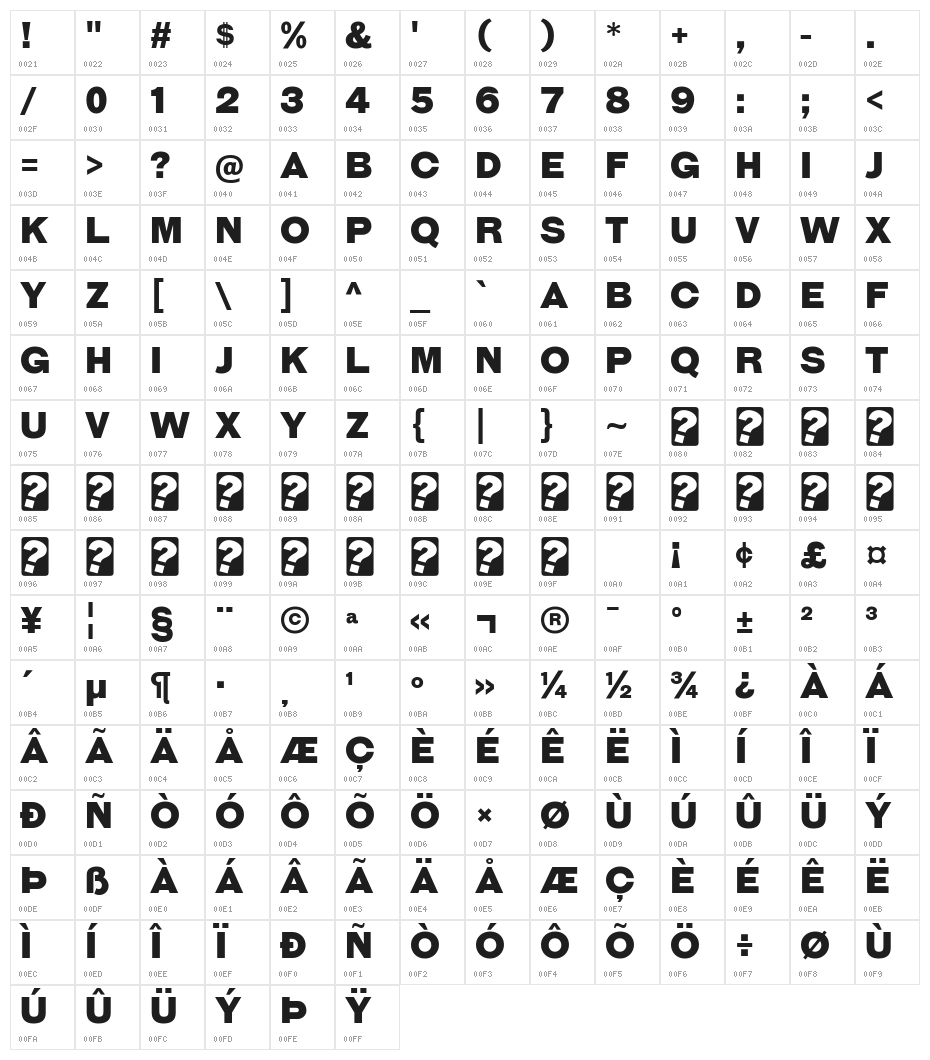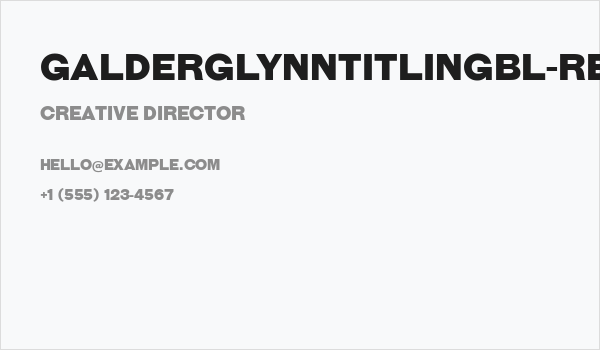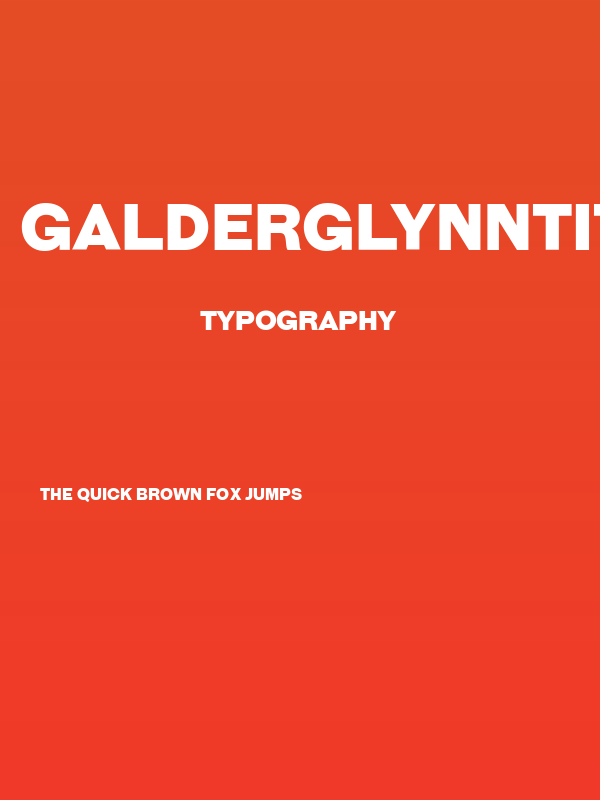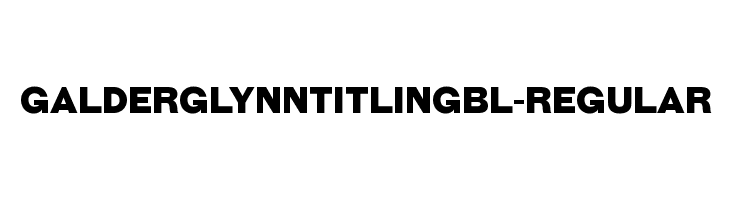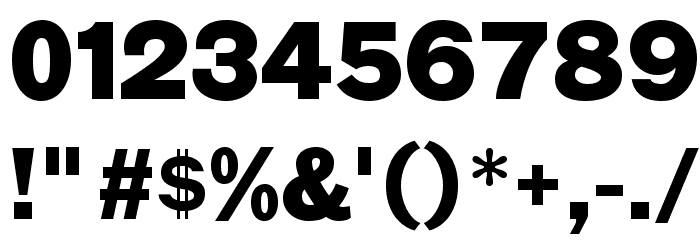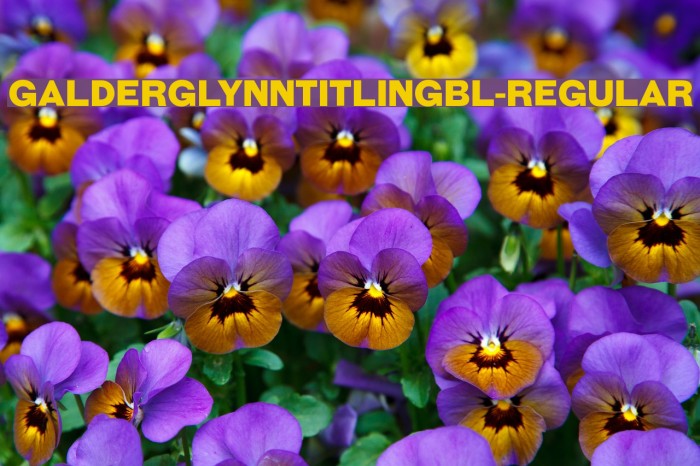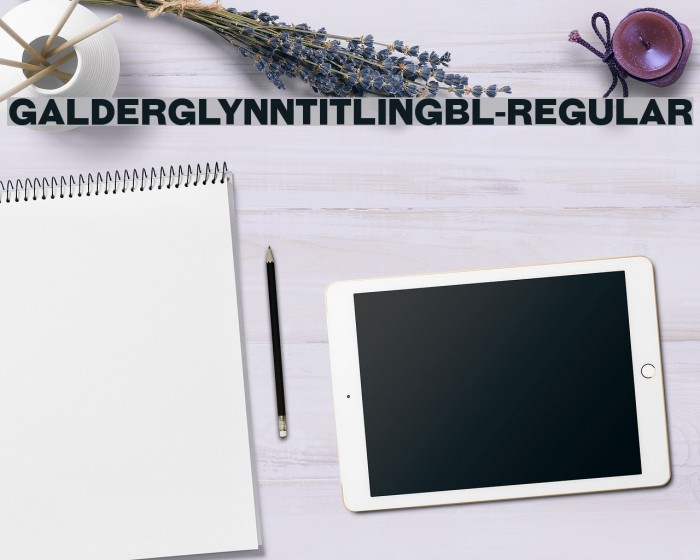
GalderglynnTitlingBl-Regular Font
GalderglynnTitlingBl-Regular Description
This font is a bold and impactful sans-serif typeface, characterized by its strong, geometric shapes and uniform stroke widths. The uppercase letters are particularly striking, with a solid presence that commands attention. The numbers and special characters maintain the same boldness, ensuring consistency across all glyphs. The font's design is clean and modern, making it suitable for a variety of applications where clarity and emphasis are needed. Its simplicity and lack of decorative elements contribute to its versatility, allowing it to be used effectively in both digital and print media.
| Proposed Projects | Ideal for headlines, posters, branding, and any project requiring a strong visual impact. |